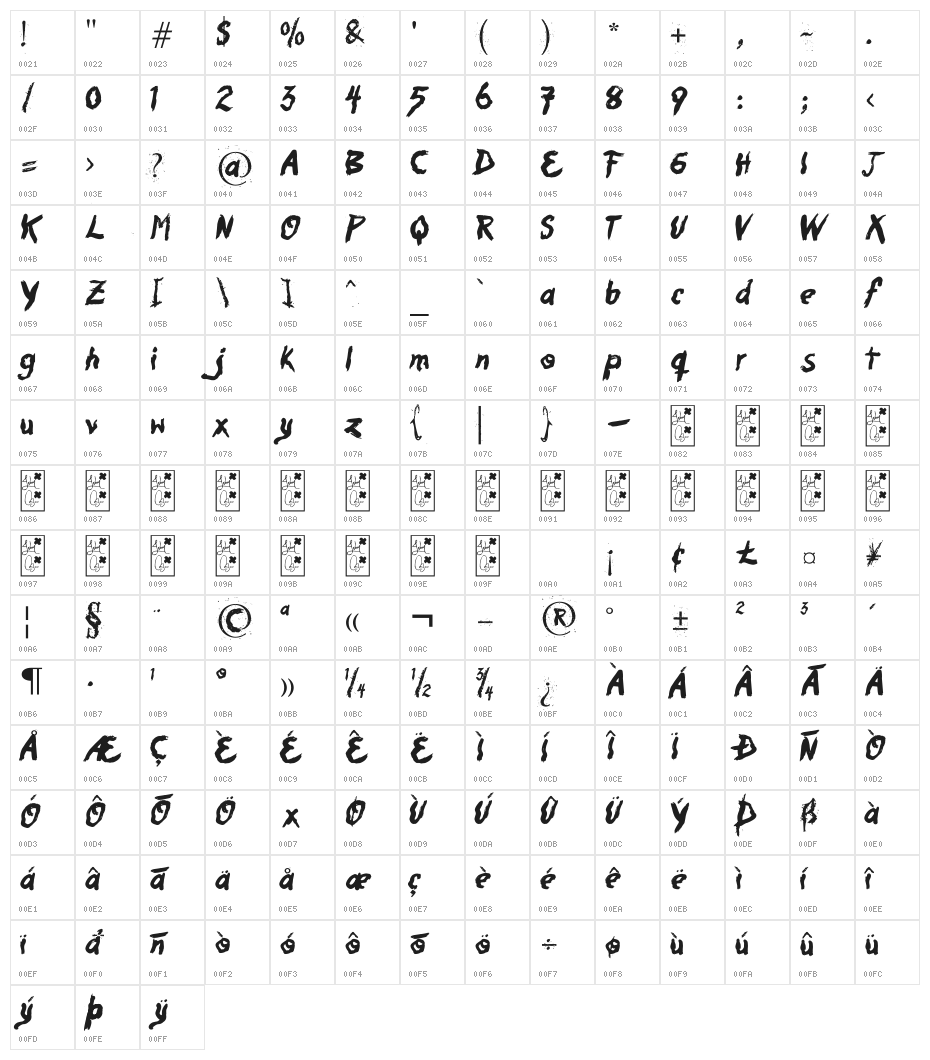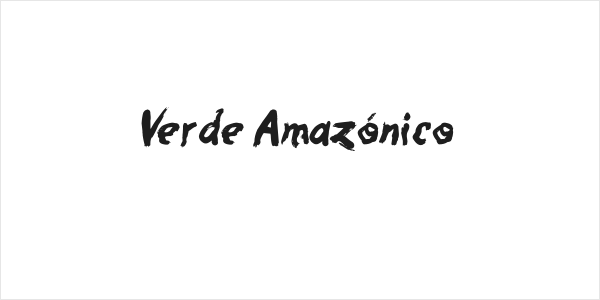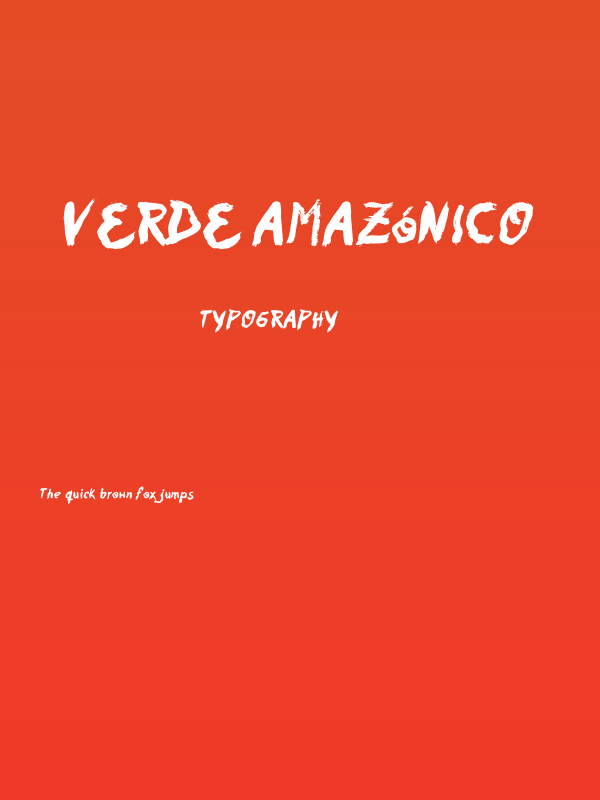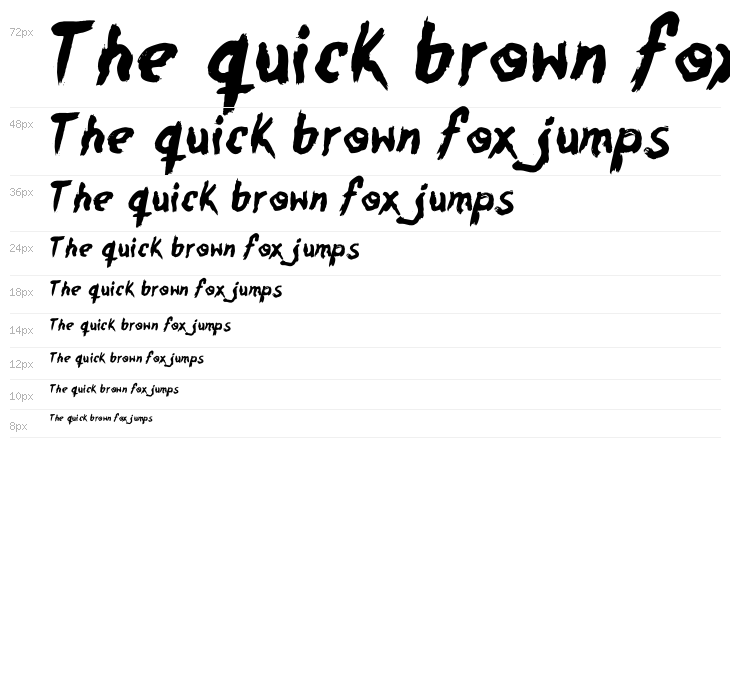
Verde Amazónico Font
Verde Amazónico Description
This font features a bold and expressive brushstroke style, giving it a dynamic and energetic appearance. The characters are irregular and organic, with a hand-painted look that adds a sense of movement and creativity. The uppercase and lowercase letters are distinct yet cohesive, maintaining a consistent flow throughout the alphabet. The numbers and special characters follow the same artistic style, ensuring uniformity across all elements. This font's unique design makes it stand out, perfect for projects that require a touch of artistic flair.
| Proposed Projects | Ideal for posters, album covers, artistic branding, and creative advertising campaigns. |